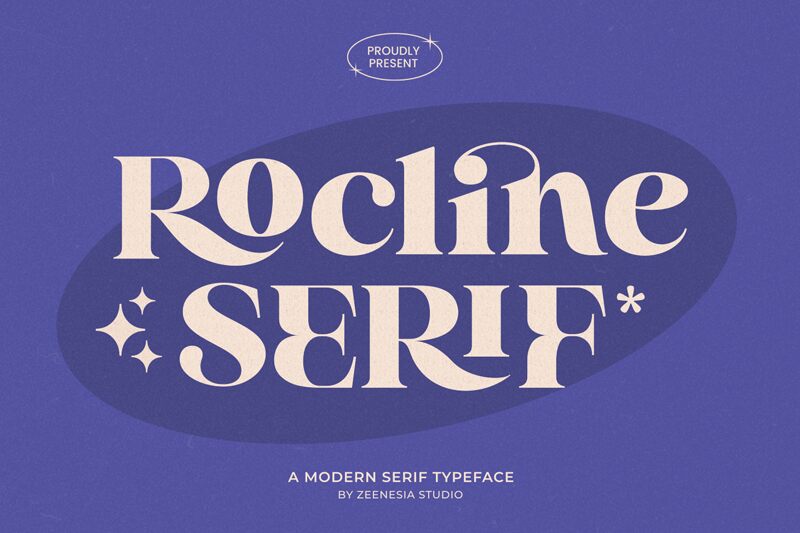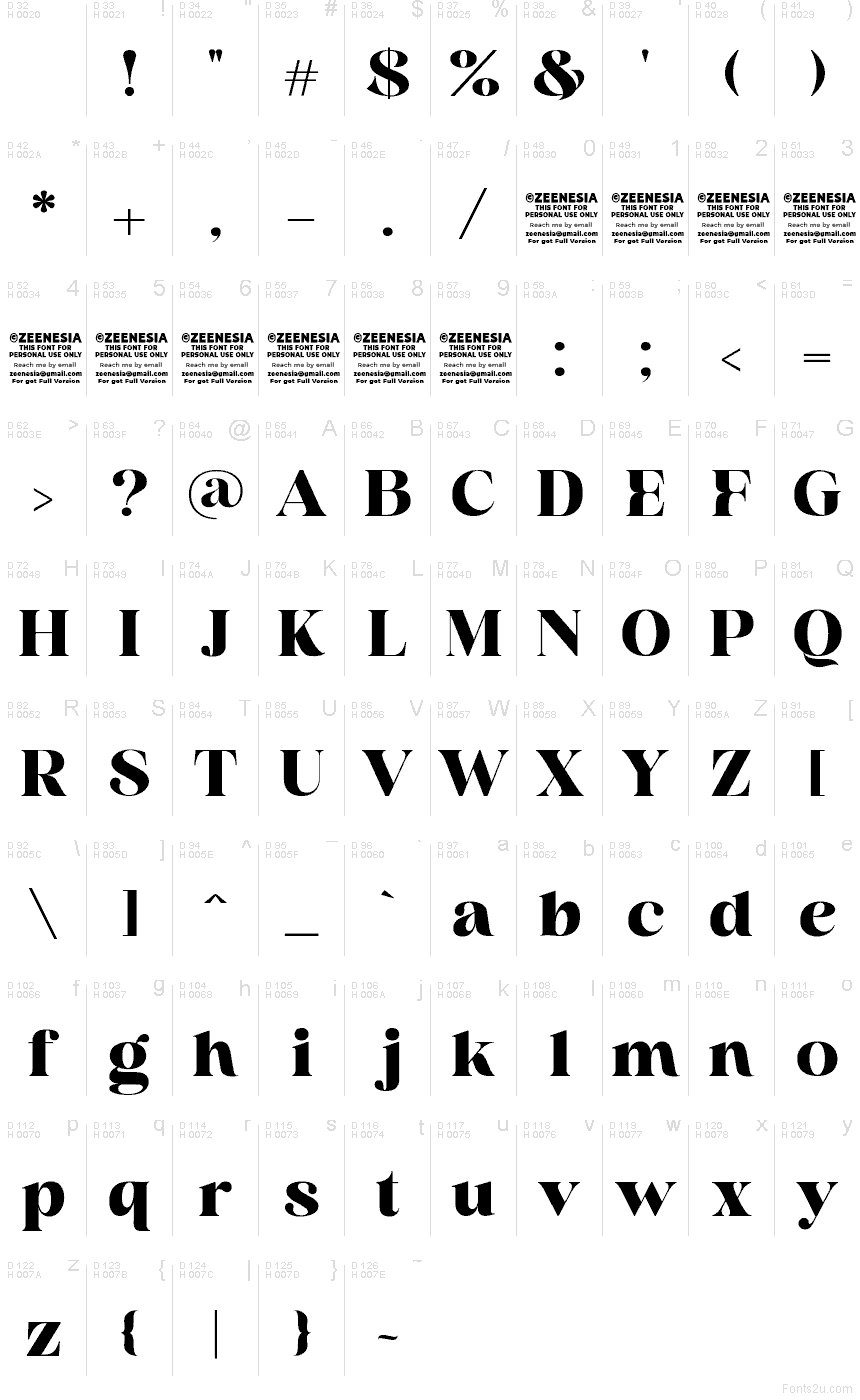
Rocline font by Zeenesia Studio is a free serif typeface with a bold, sculpted presence that feels both luxurious and modern. Thick, inky strokes are cut with slim, elegant connections, giving each letter a carved, editorial feel, while the rounded terminals keep it from becoming too sharp or cold. The overall rhythm is dense and confident, so short words and names hit the page with real weight and drama.
Using Rocline, you can craft striking logos, fashion or beauty branding, magazine titles, posters, packaging, and standout social media graphics. This free font shines when set large, where its dramatic curves and hefty forms can really breathe. For supporting text, pair Rocline with a clean geometric sans at smaller sizes to keep layouts balanced and readable.